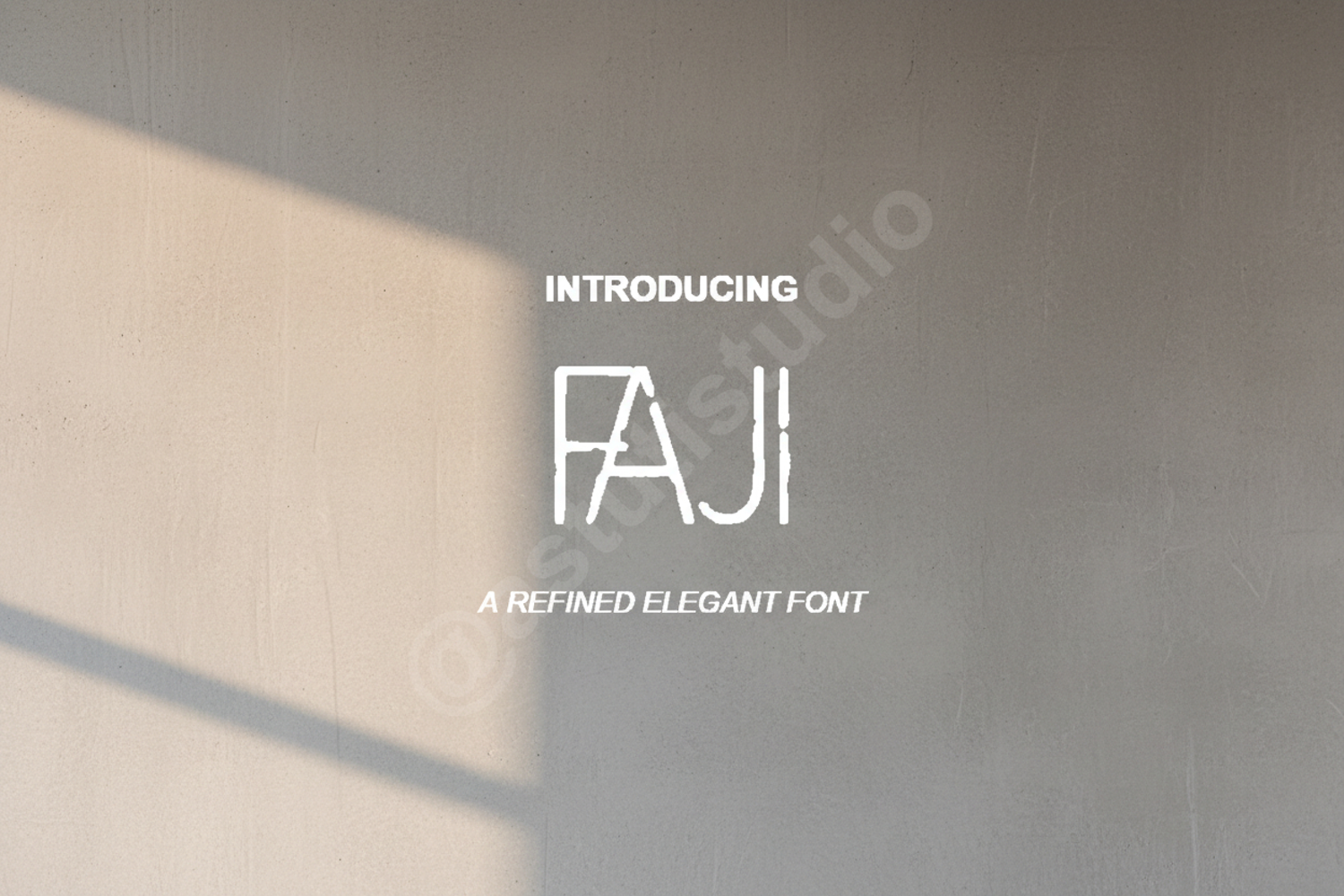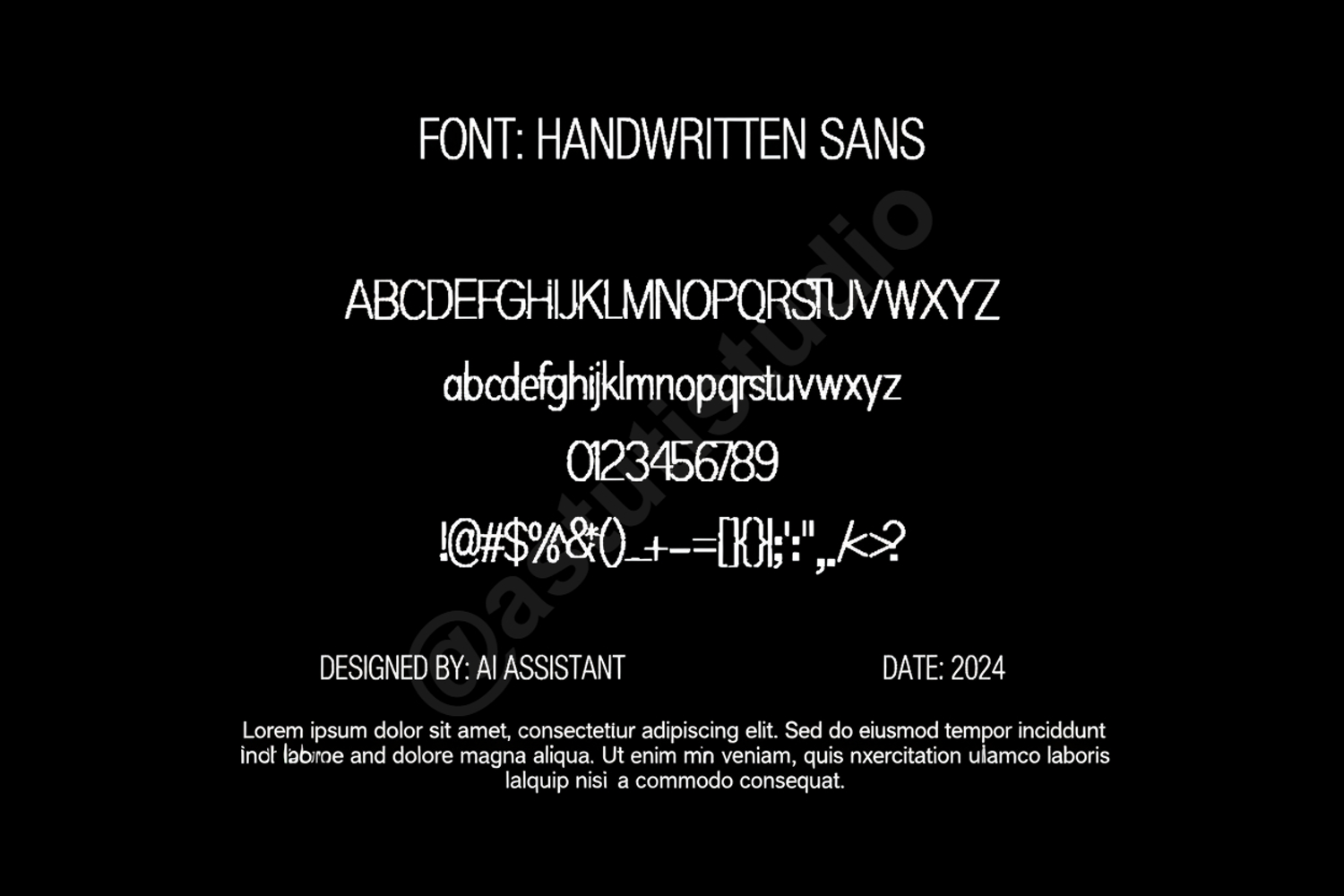
Faji - Elegant Modern Sans Serif Typeface
Faji
Elevate your creative projects with Faji, a premium sans serif typeface that blends contemporary minimalism with timeless elegance. Designed for creators who demand precision and style, Faji offers clean lines and balanced proportions that make every character stand out.
- Full uppercase and lowercase character set
- Comprehensive numerals and punctuation